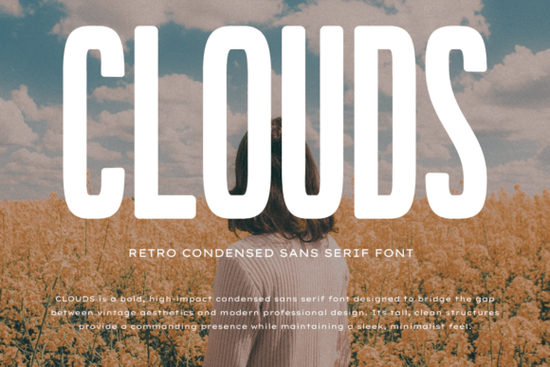
When you need a typeface that balances vintage charm with clean readability, Clouds Font offers a reliable solution for both personal and commercial projects. This bold, condensed sans serif brings a structured yet soft feel to your layouts, making it easier to create high-impact visuals without sacrificing legibility. Designers and small business owners often look for typography that stands out on crowded screens or printed materials, and the rounded edges here strike that balance perfectly.
Why does condensed retro typography work for modern branding?
The appeal of this style comes from its tall letterforms and tight spacing, which naturally draw the eye to your main message. Retro-inspired typefaces carry built-in nostalgia, but when they are stripped down to simple geometric shapes, they feel fresh and professional. If you are building a brand identity, using a strong headline font helps establish immediate recognition across websites, packaging, and storefront signage. Pairing this with a clean secondary typeface, like this rounded sans serif option, keeps the visual hierarchy clear while letting your primary title command attention.
How does the typeface handle different design projects?
The narrow width makes it highly adaptable, especially when working within tight layout constraints. Magazine editors appreciate how well it fits alongside large imagery without overwhelming the page. Print-on-demand sellers find that the clean strokes reproduce sharply on t-shirts and posters. Because the letters maintain consistent thickness, you won’t need to constantly adjust tracking or worry about blurry edges when exporting files for production. If you need something with a slightly lighter feel, exploring options like this airy alternative provides a useful companion while keeping the same minimalist approach.
Best applications for print-on-demand and social media
Short, punchy quotes and campaign slogans look strongest when set in a condensed style. The tall x-height ensures your text remains readable even on mobile screens where space is limited. When creating apparel graphics, you can place the type over textured backgrounds without losing contrast. The rounded corners prevent the design from feeling too rigid, which appeals to younger demographics and lifestyle brands. If you want to explore more geometric precision for corporate visuals, this structured choice offers a clean baseline that sits nicely underneath heavier headlines.
What makes the character shapes so versatile?
Every letter was constructed with smooth curves and uniform stroke weights, which eliminates harsh angles that often cause visual fatigue. This approach works well for long-running marketing campaigns where you need consistent branding across multiple touchpoints. Crafters and hobbyists also benefit from the straightforward design, since the letters cut cleanly in vinyl and laser cutting software without requiring manual node adjustments. The warm vibe reminds many users of classic seventies print ads, yet it avoids the heavy ink traps that make older typefaces difficult to scale.
How do I pair it with other typefaces?
Because the primary letters are bold and narrow, they need breathing room when combined with supporting text. Start by keeping body copy light and highly legible. A neutral sans serif with open counters works best for paragraphs and captions. You can also experiment with subtle serif options for editorial layouts where a traditional feel is preferred. Testing different tracking settings in your design software helps you find the right rhythm. If you prefer to stick within the same family for cohesion, browsing these matching variations ensures your secondary text complements the main title without competing for attention.